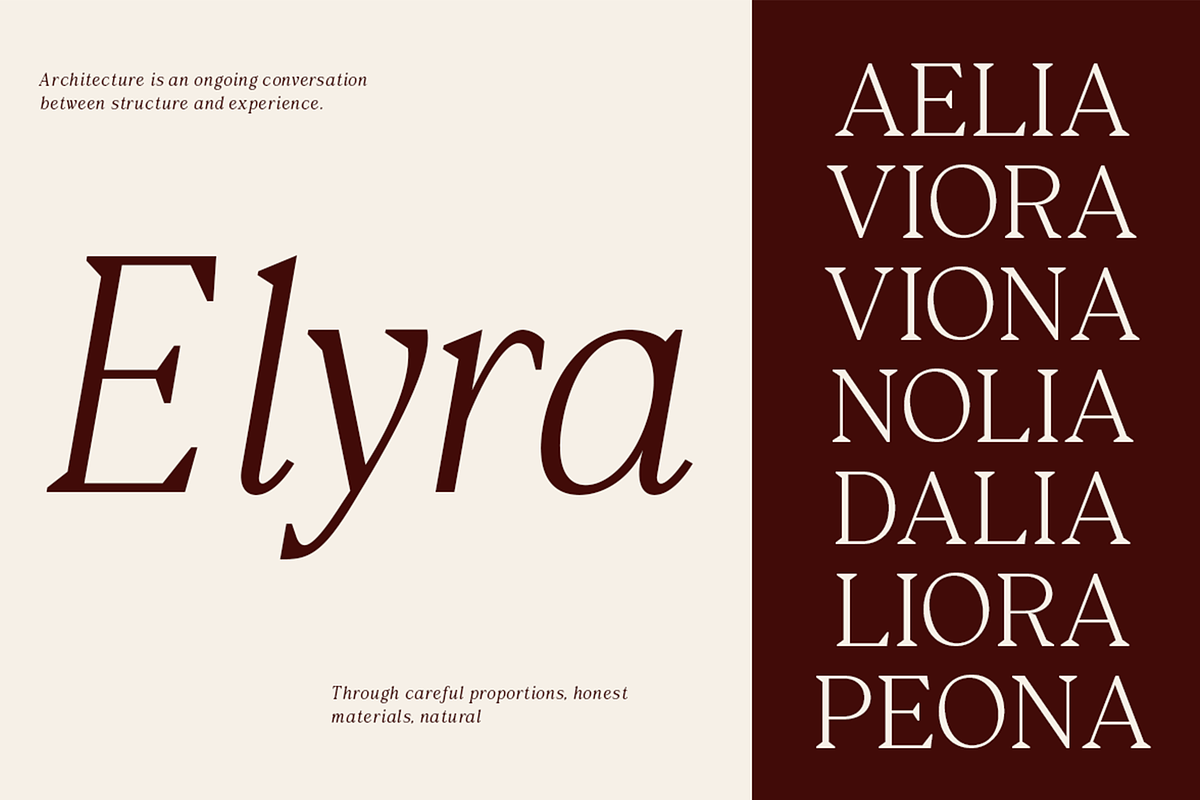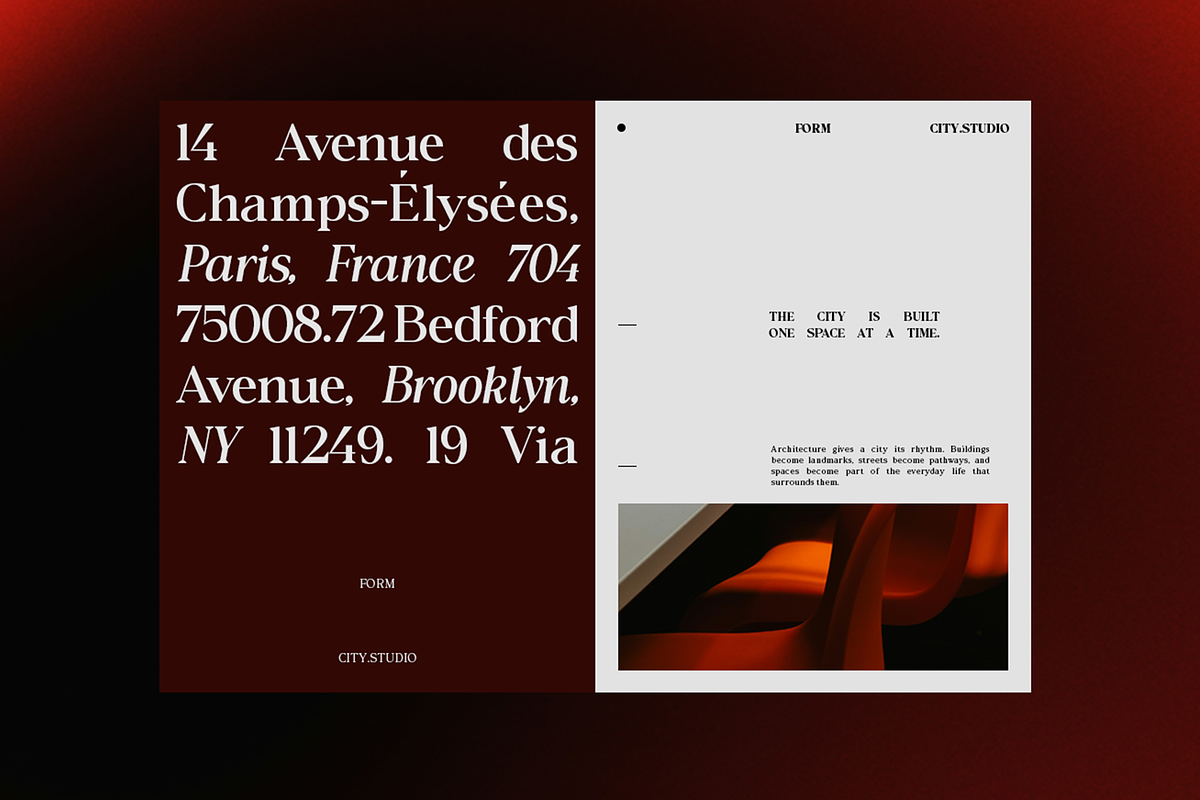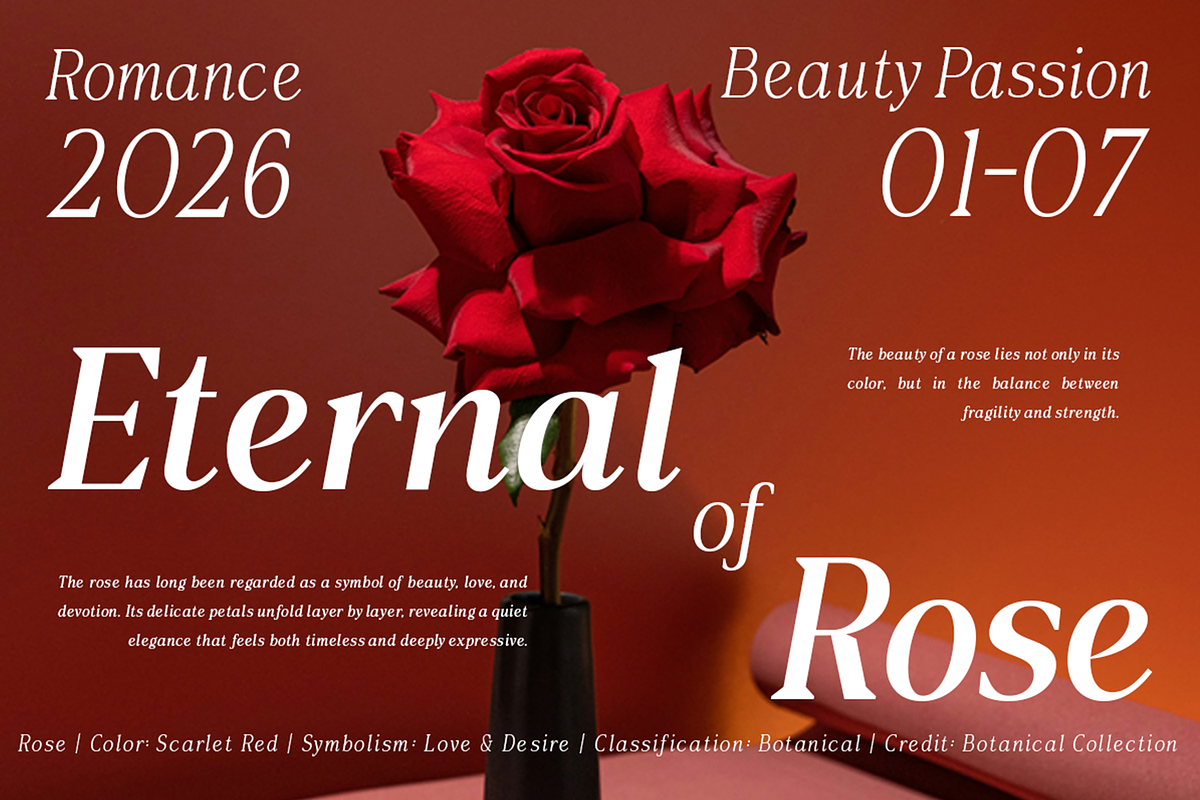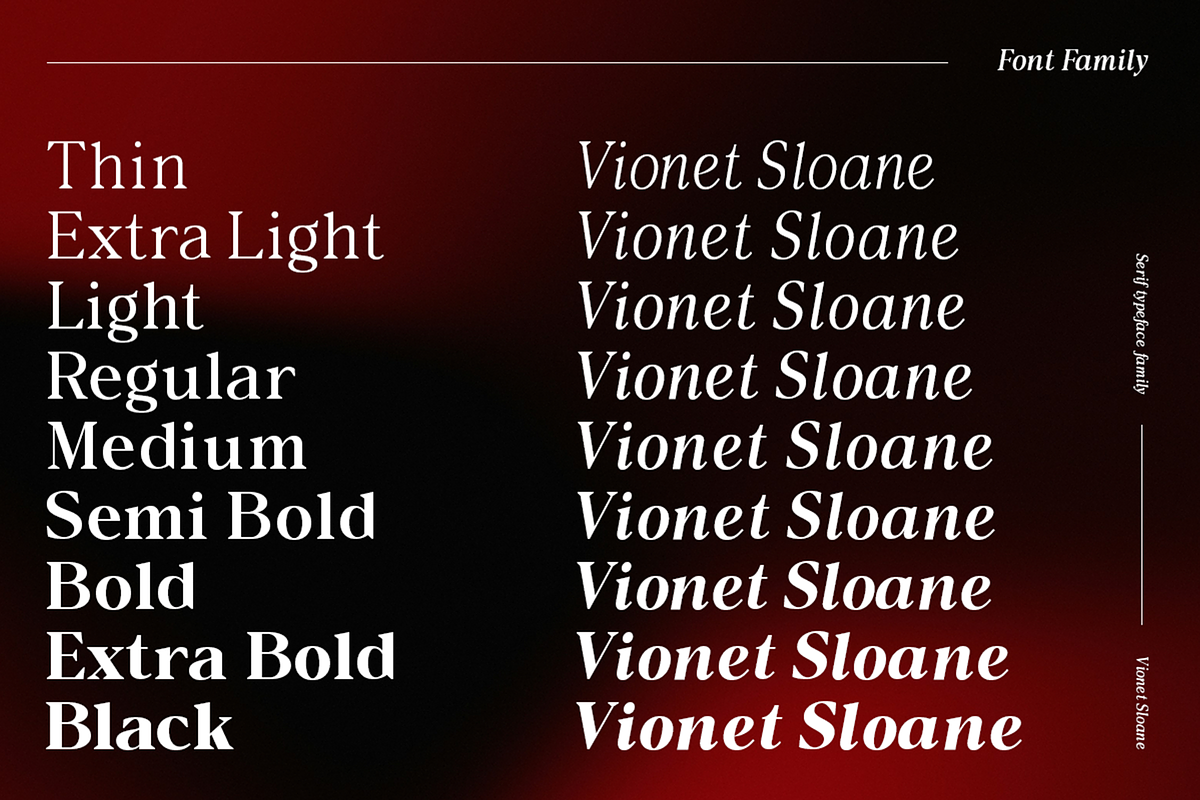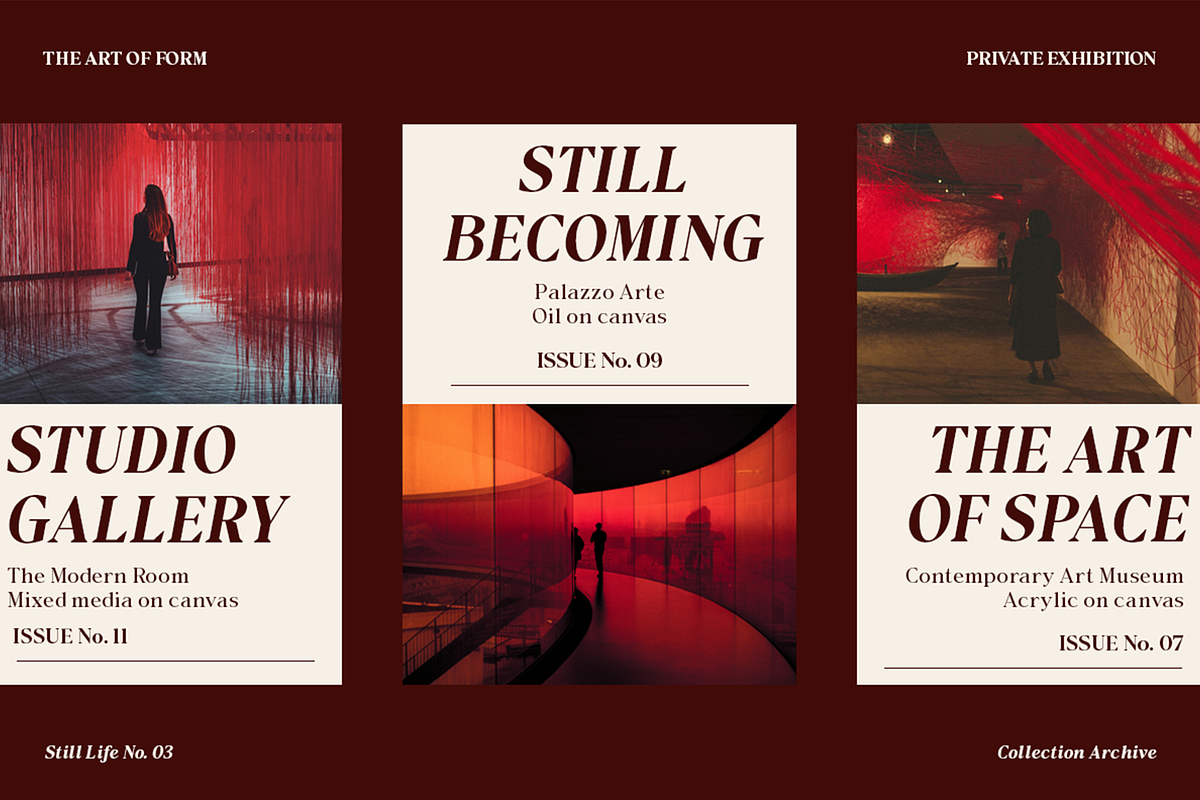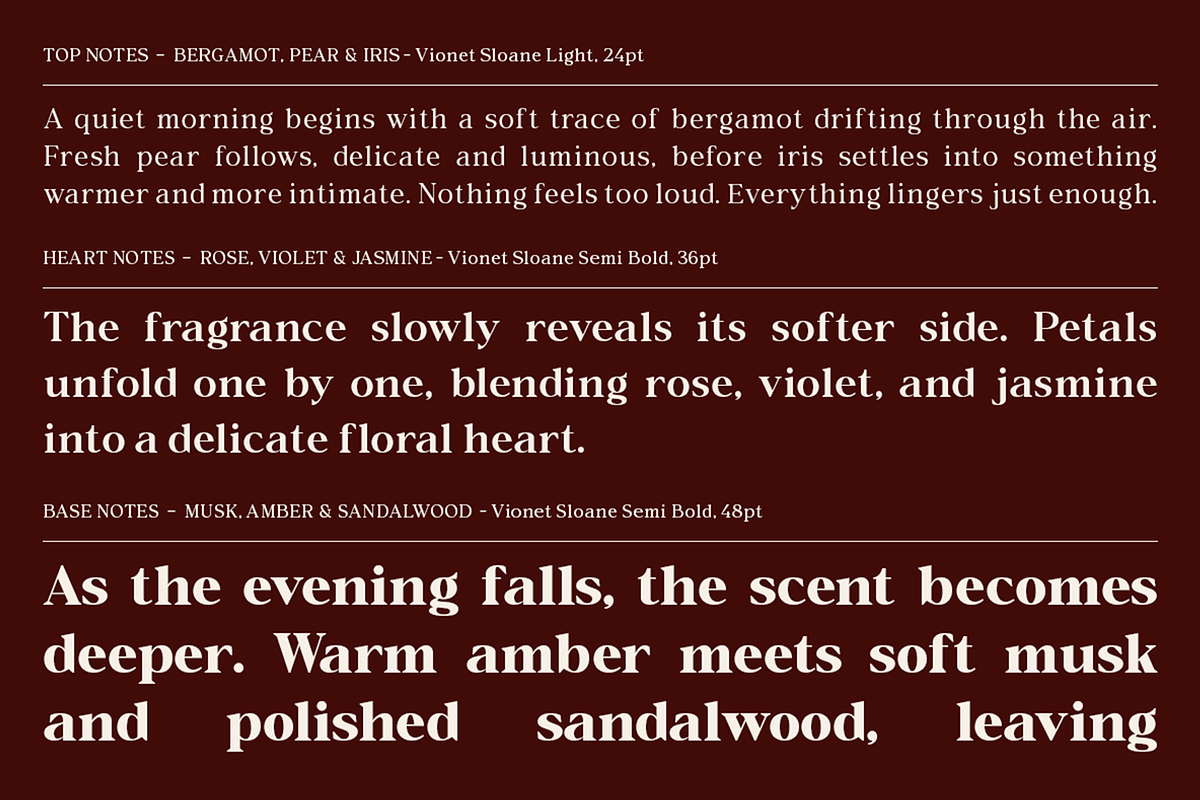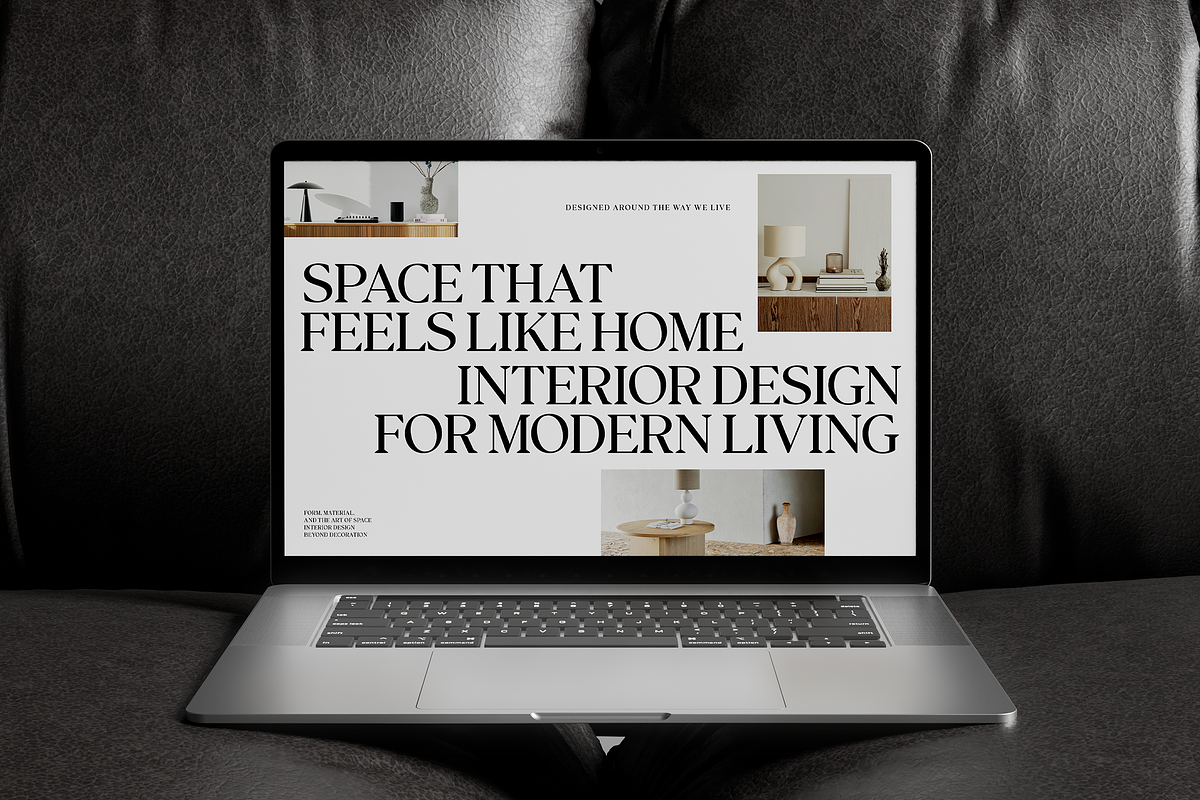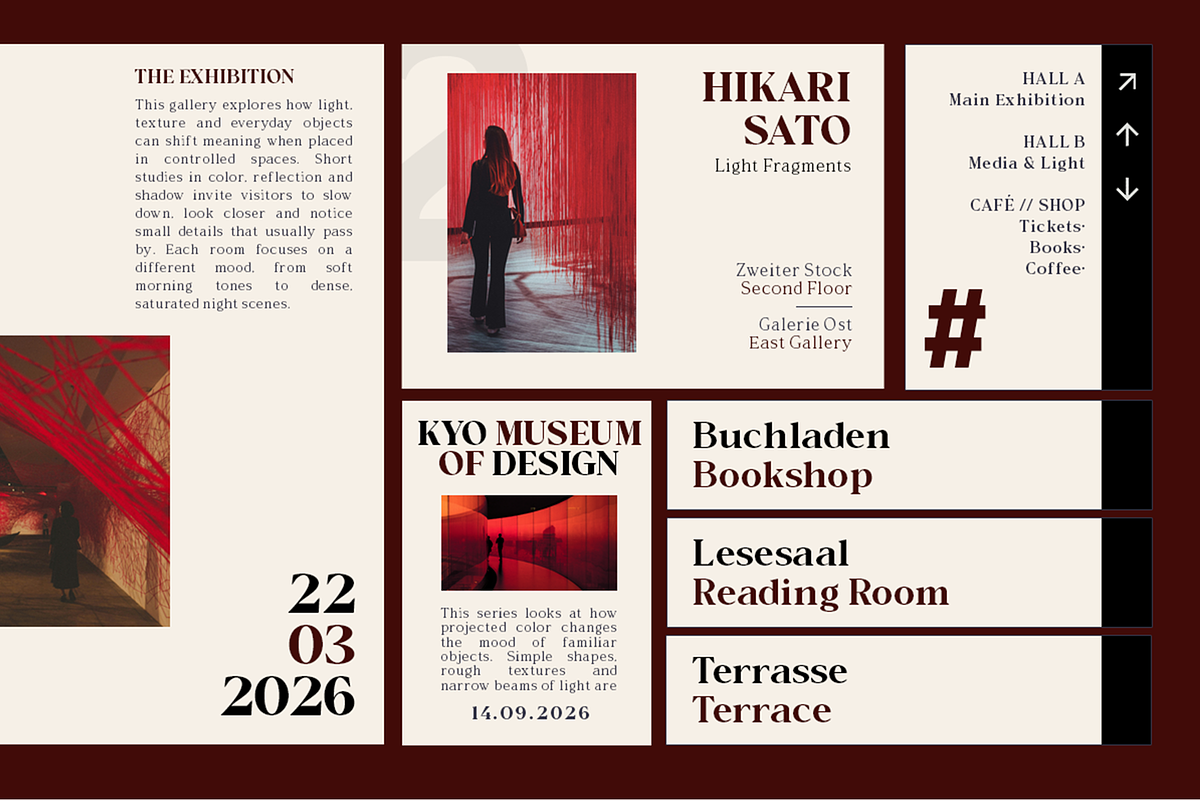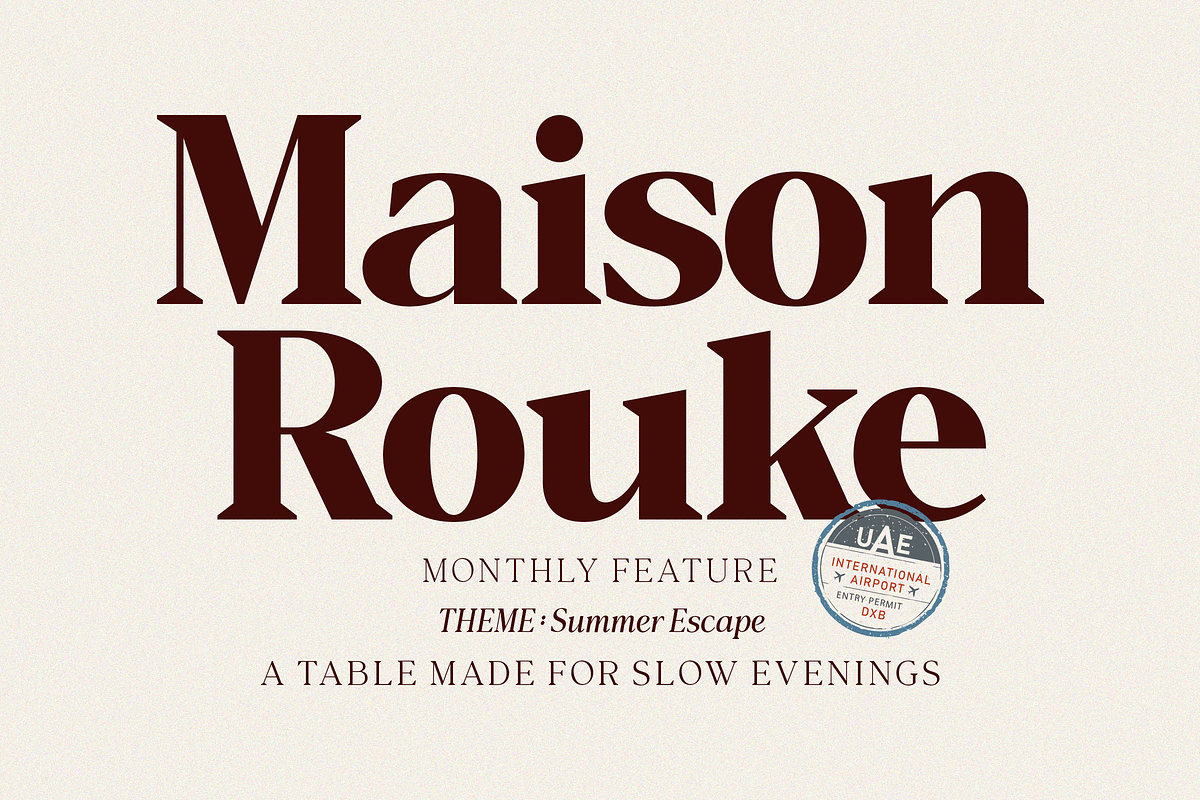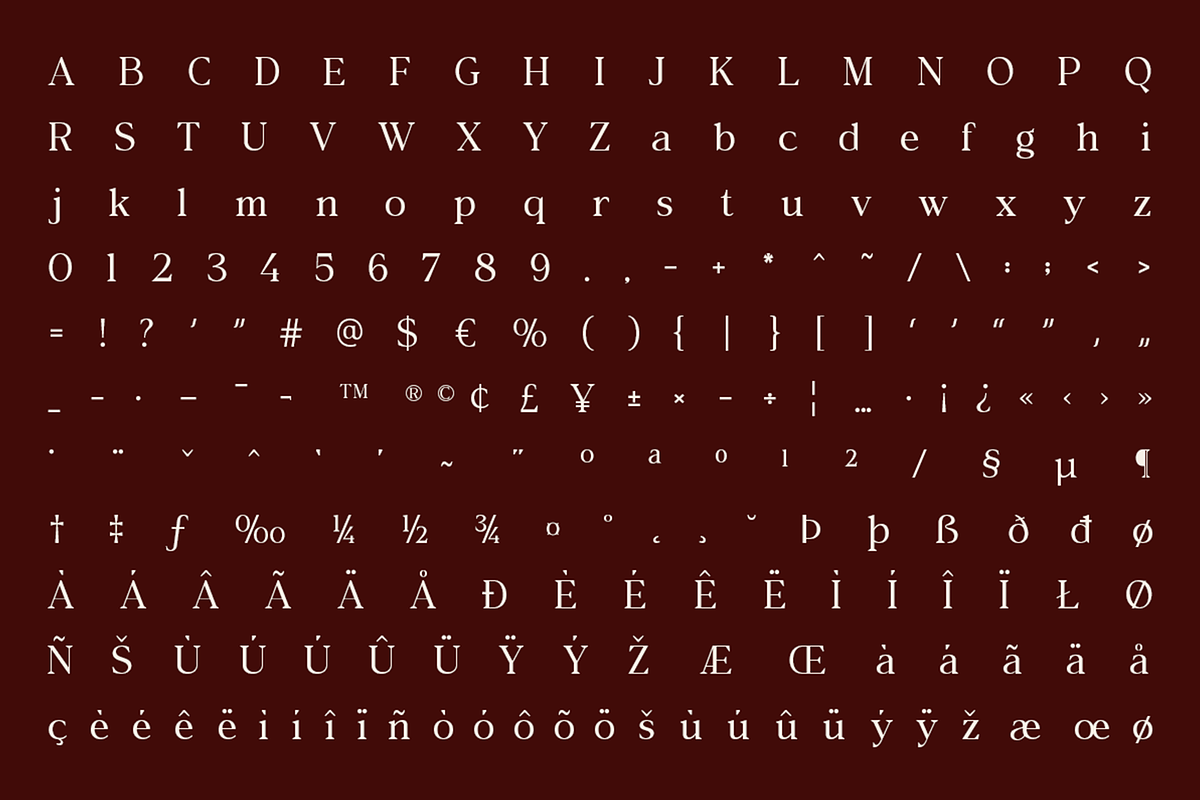
Vioneta Sloane – Serif Font
Vioneta Sloane is a sophisticated high-contrast serif font family designed for editorial typography, fashion branding, luxury identities, and expressive display design. Its refined proportions, sharp serif details, dramatic thick-and-thin contrast, and elegant letterforms create a distinctive visual presence for both classic and contemporary projects.
The font family includes 2 styles and 9 weights, ranging from Thin, Extra Light, Light, Regular, Medium, Semi Bold, Bold, Extra Bold, to Black. This extensive weight range gives designers greater flexibility to build clear typographic hierarchy, from delicate editorial text and elegant captions to bold headlines, titles, logos, and statement compositions.
Vioneta Sloane is suitable for fashion magazines, editorial layouts, luxury branding, beauty campaigns, fragrance packaging, cosmetic branding, restaurant identities, boutique logos, posters, invitations, book covers, social media graphics, website headlines, advertising campaigns, and other visual identity projects.
The character set includes uppercase and lowercase letters, numerals, punctuation, symbols, currency characters, fractions, and extended Latin characters with accented glyphs. The font is designed to provide a versatile typographic system for professional print and digital design.